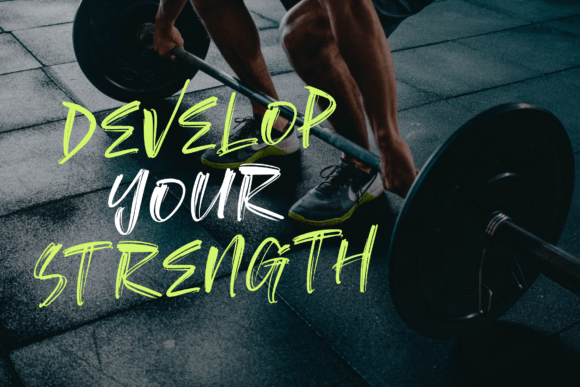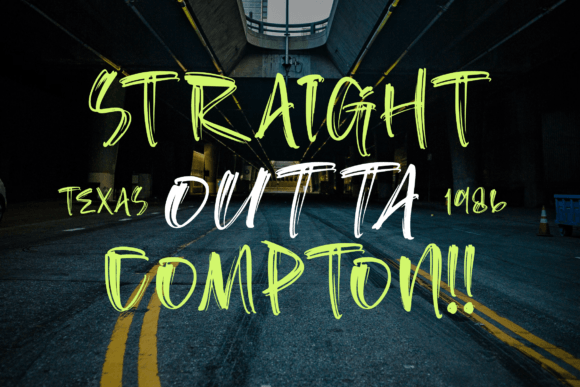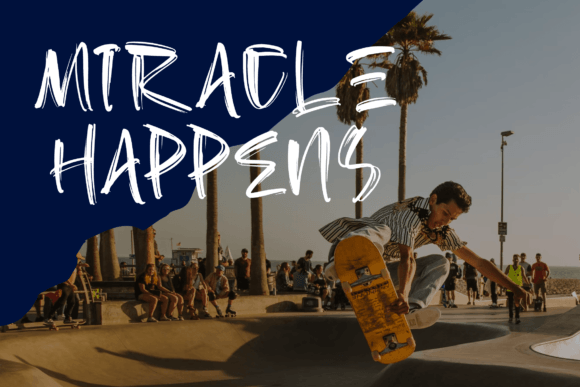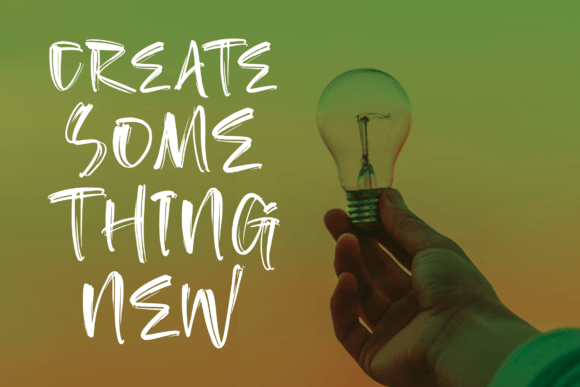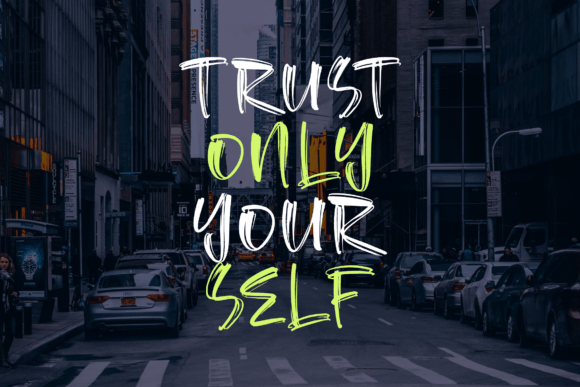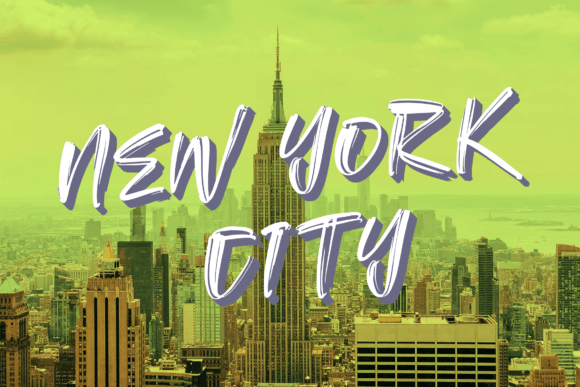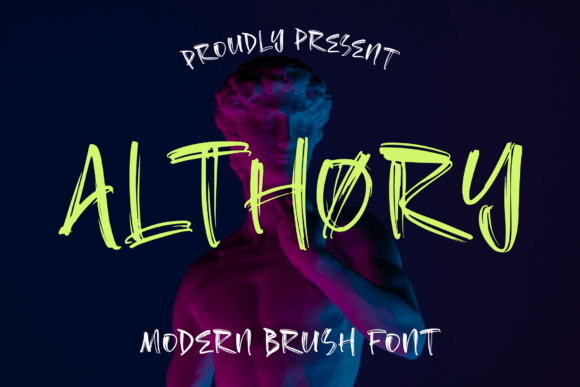
Introducing Althory Font: The Perfect Handwritten Brush Script for Your Creative Projects
Are you a designer, crafter, or DIY enthusiast looking for a unique and expressive font to elevate your creative projects? Look no further than Althory Font, a beautiful handwritten brush script font that mimics the look and feel of writing on a marker board. With its charming and authentic style, Althory Font is perfect for a wide range of applications, from greeting cards and invitations to motivational quotes and more.
What Makes Althory Font So Special?
Althory Font is a carefully crafted handwritten brush script font that boasts a distinctive, marker-board-inspired aesthetic. Its unique characteristics make it an excellent choice for designers and crafters seeking to add a personal touch to their work. Here are just a few reasons why Althory Font stands out:
- Authentic Look and Feel: Althory Font is designed to replicate the imperfections and nuances of handwriting on a marker board. Its strokes are bold, expressive, and full of character, giving your text a warm and inviting appearance.
- Highly Versatile: Whether you’re creating greeting cards, invitations, social media graphics, or motivational quotes, Althory Font is the perfect choice. Its flexibility and adaptability make it suitable for a wide range of applications and design styles.
Althory Font is an excellent addition to any designer’s or crafter’s toolkit. Here are just a few ways you can use this amazing font to elevate your creative projects:
- Greeting Cards: Add a personal touch to your greeting cards with Althory Font’s charming, handwritten style. Perfect for birthdays, holidays, and special occasions.
- Invitations: Create beautiful, eye-catching invitations for weddings, parties, and other events using Althory Font. Its unique style is sure to impress your guests.
- Motivational Quotes: Use Althory Font to create inspiring and uplifting quotes for social media, blogs, or print materials. Its bold, expressive strokes are perfect for conveying motivational messages.
- DIY Projects: Althory Font is also great for DIY enthusiasts who enjoy crafting and scrapbooking. Use it to add a personal touch to your projects, such as handmade cards, gift tags, and journal pages.
Tips for Getting the Most Out of Althory Font
To help you get started with Althory Font, here are some tips and tricks for getting the most out of this amazing font:
- Experiment with Colors: Althory Font looks great in a variety of colors, so don’t be afraid to experiment and find the perfect hue for your design.
- Play with Sizes: Althory Font is highly versatile and can be used at a range of sizes, from small and delicate to large and bold.
- Combine with Other Fonts: Althory Font pairs well with other fonts, so feel free to experiment with combining it with different typefaces to create unique and interesting effects.
In conclusion, Althory Font is a beautiful, handwritten brush script font that’s perfect for designers, crafters, and DIY enthusiasts. Its authentic, marker-board-inspired style and versatility make it an excellent choice for a wide range of creative projects. Whether you’re creating greeting cards, invitations, motivational quotes, or DIY projects, Althory Font is sure to help you express your best messages in a unique and engaging way.